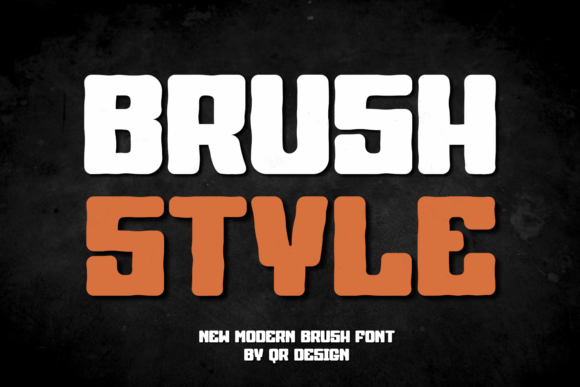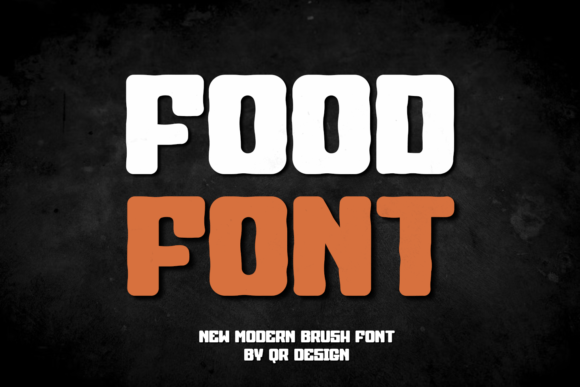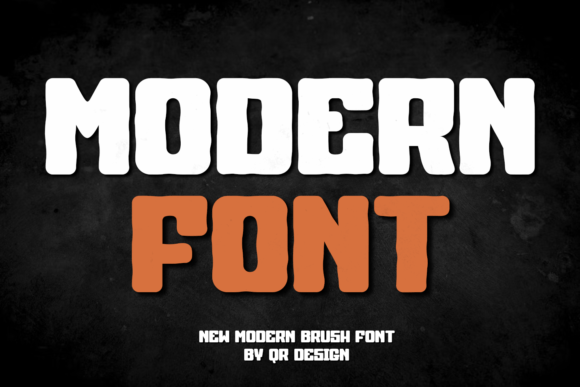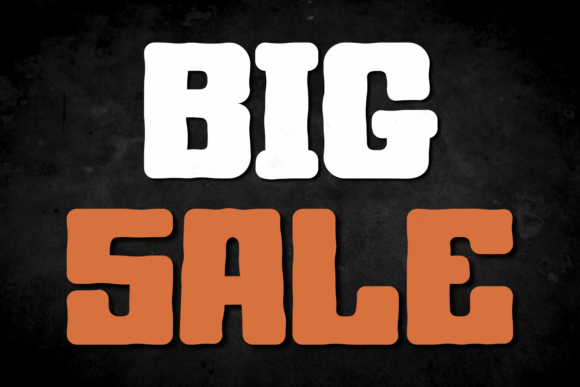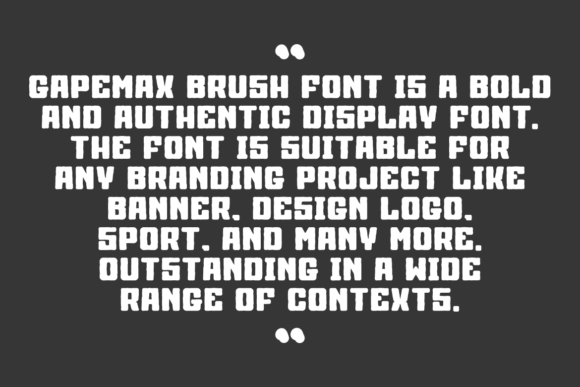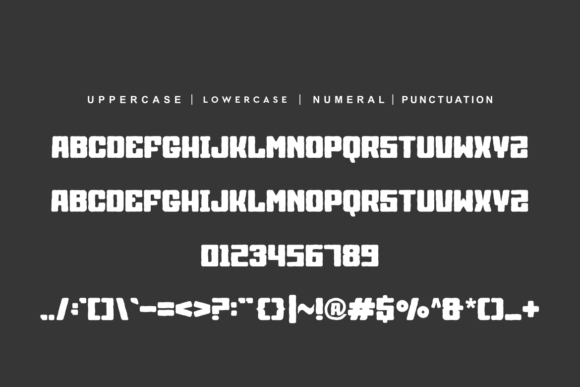
Introducing Gapemax Brush Font: The Ultimate Display Font for Bold Designs
Are you tired of using ordinary fonts that fail to make a statement? Look no further than Gapemax Brush Font, a bold and authentic display font that’s perfect for taking your branding projects to the next level. In this article, we’ll dive into the features and benefits of Gapemax Brush Font, and explore how it can elevate your designs.
What is Gapemax Brush Font?
Gapemax Brush Font is a carefully crafted display font that’s designed to make a bold statement. With its unique brush-like texture, this font exudes a sense of authenticity and ruggedness that’s perfect for creating eye-catching designs. Whether you’re working on a logo, t-shirt printing, e-sport, or any other branding project, Gapemax Brush Font is the perfect choice.
Key Features of Gapemax Brush Font
- Bold and Authentic: Gapemax Brush Font boasts a bold and authentic look that’s sure to grab attention.
- Multi-Purpose: This font is suitable for a wide range of contexts, from logos and t-shirt printing to e-sport and more.
Benefits of Using Gapemax Brush Font
So why choose Gapemax Brush Font for your next design project? Here are just a few benefits of using this versatile font:
- Stand Out from the Crowd: With its unique brush-like texture, Gapemax Brush Font helps your designs stand out from the competition.
- Easy to Read: Despite its bold look, Gapemax Brush Font is surprisingly easy to read, making it perfect for headlines and titles.
Design Ideas with Gapemax Brush Font
So what can you create with Gapemax Brush Font? Here are a few design ideas to get you started:
- Logos: Create a bold and memorable logo for your brand with Gapemax Brush Font.
- T-Shirt Printing: Design eye-catching t-shirts with Gapemax Brush Font that’s sure to turn heads.
- E-Sport Designs: Take your e-sport designs to the next level with Gapemax Brush Font’s bold and authentic look.
- Posters and Flyers: Use Gapemax Brush Font to create striking posters and flyers that grab attention.